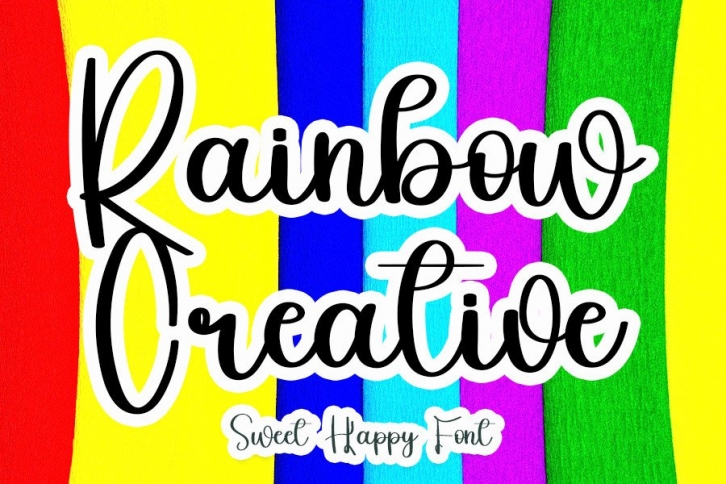
Rainbow Creative is a simple and fun script font. Fall in love with its completely different and timeless style and use it to create spectacular designs!